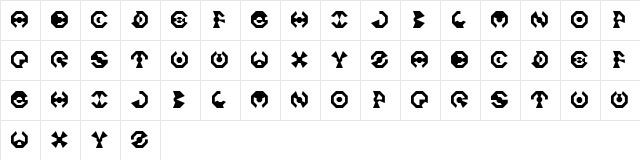
Octo Regular Free Font
Octo Regular
Design Context for Octo
Octo is a composed and adaptable typeface that performs quietly and consistently across a wide range of design contexts.